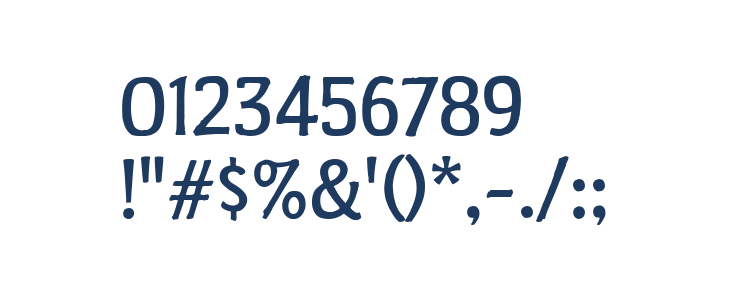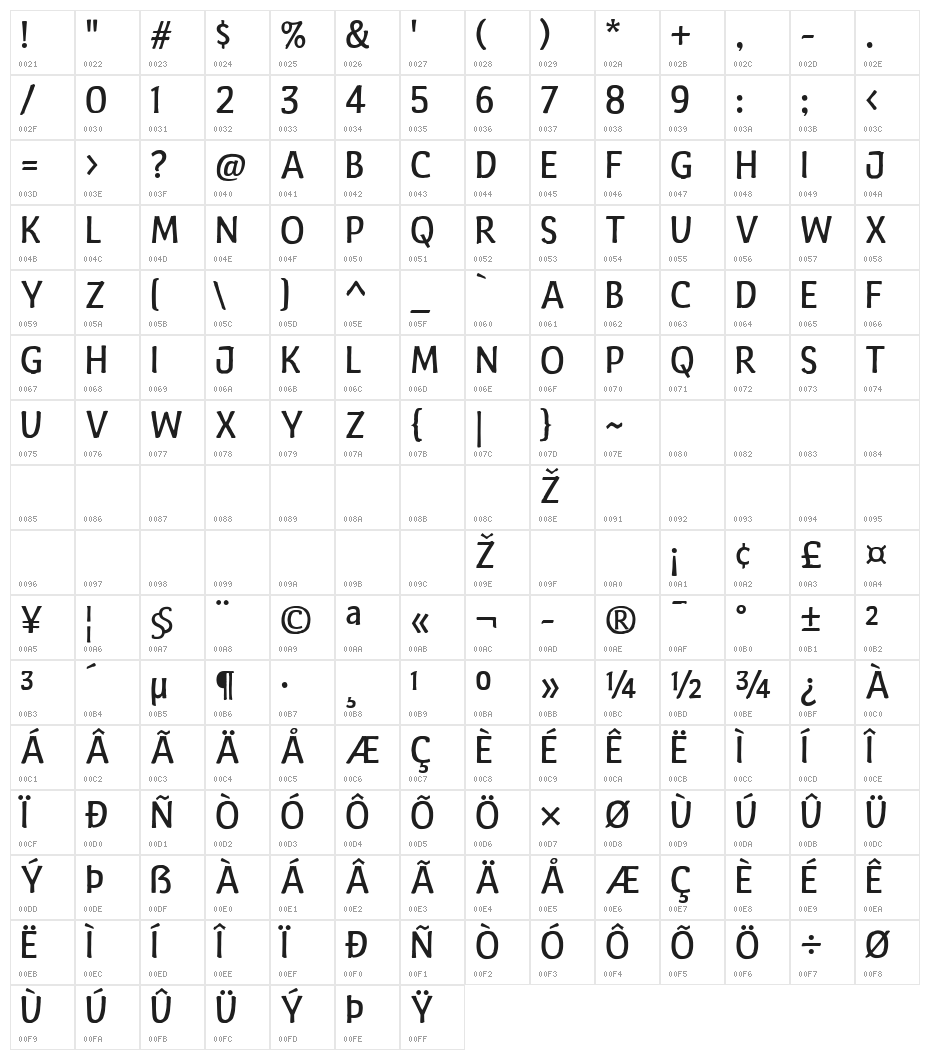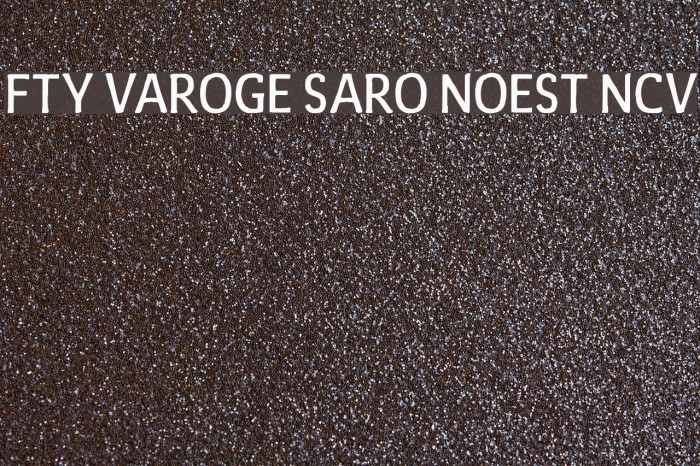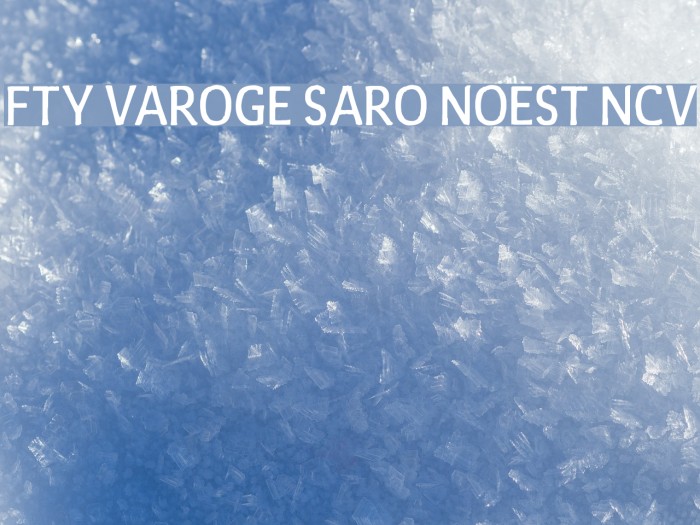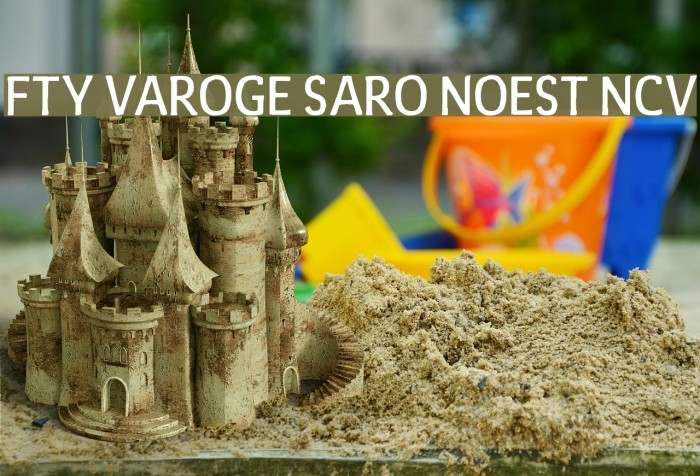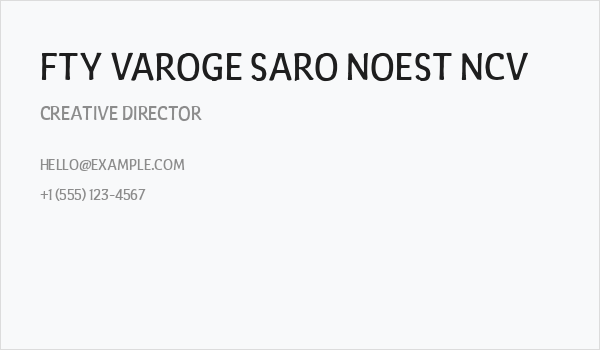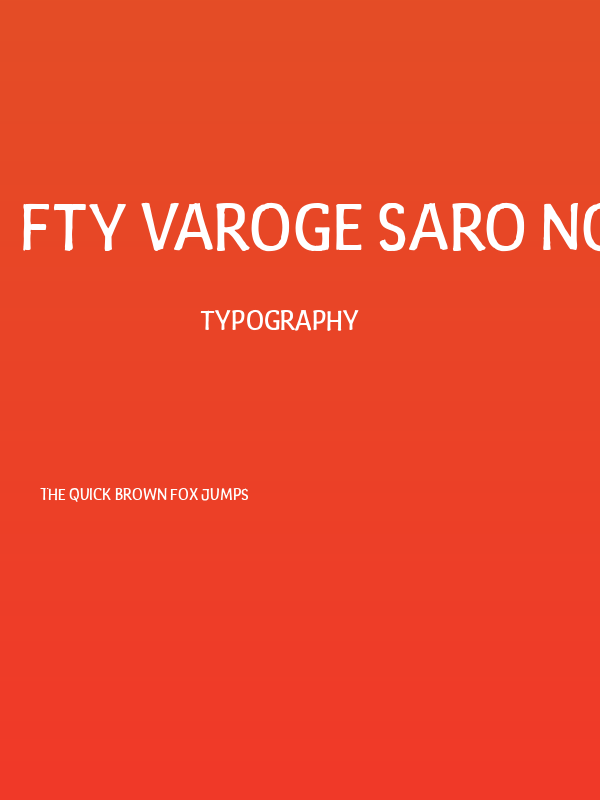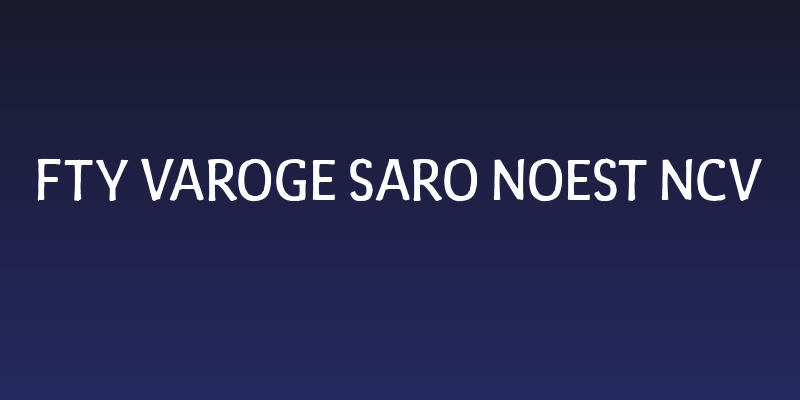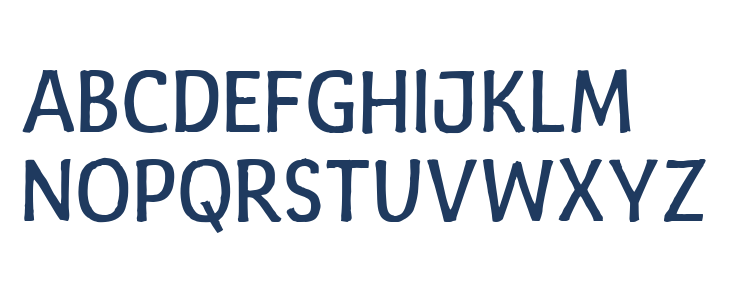
FTY Varoge Saro Noest NCV Font
FTY Varoge Saro Noest NCV Description
This font features a bold and slightly condensed style with a hand-drawn appearance. The uppercase letters are consistent in height, while the lowercase letters maintain a uniform baseline, adding to its readability. The numerals are well-proportioned, and the special characters are distinct, making them suitable for various uses. The strokes are moderately thick, providing a medium contrast that enhances visibility without overwhelming the design. The overall style is modern with a touch of vintage charm, making it versatile for both digital and print media.
| Overall Style | Modern Vintage |
| Proposed Projects | Ideal for branding, posters, headlines, and packaging designs where a bold, distinctive look is desired. |